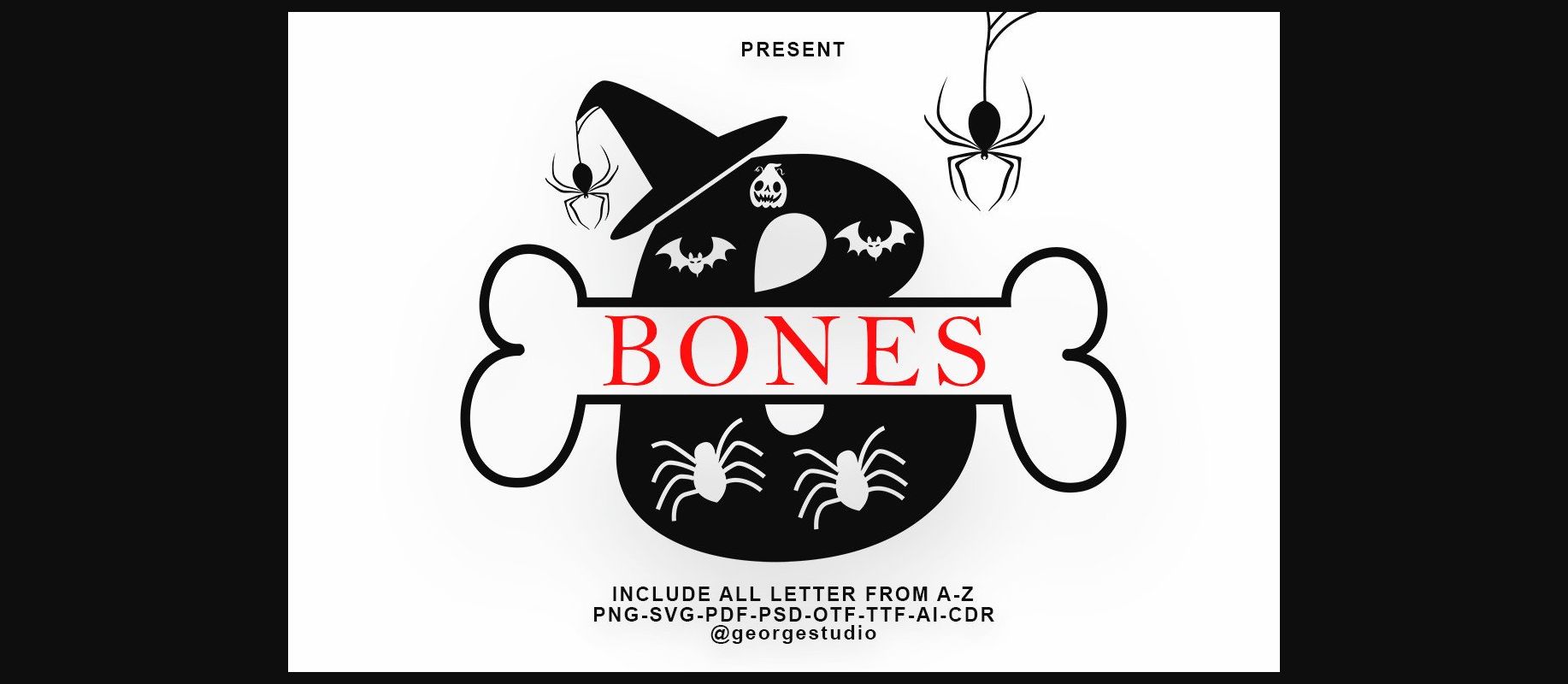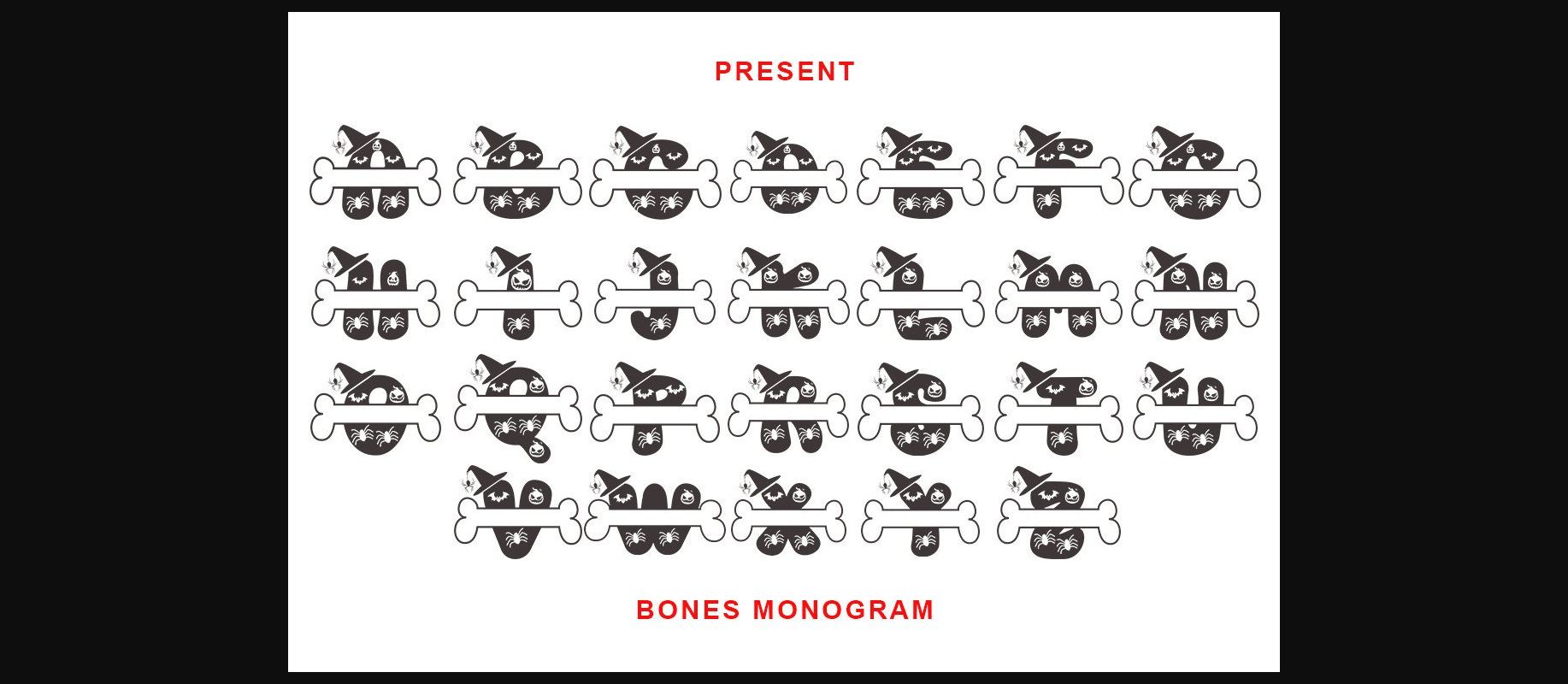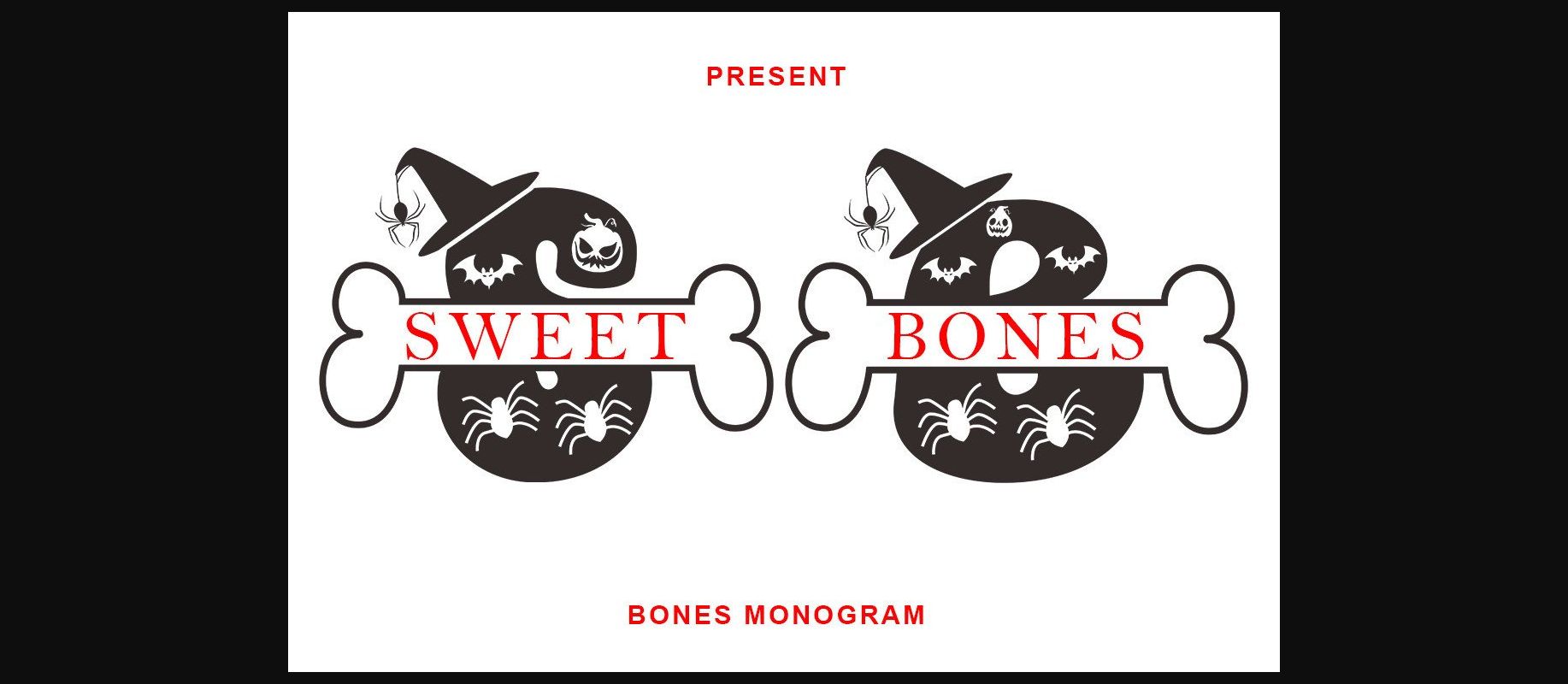
HomeDecorative FontsBones Font Decorative Fonts Bones Font FacebookXPinterestWhatsApp 1 of 5 ... Bones Font Poster 2... Bones Font Poster 3... Bones Font Poster 4... Bones Font Poster 5... About Bones Font Bone is an incredibly unique and spooky monogram decorative font. Add it to each of your Halloween designs and make them instantly come to life. DOWNLOAD NOW People also explored Austral Sans Font Pitulasan Font California Signature Font Laborious Font Bloattey Brilliant Student Font Gustatory Delight Font Champagne Font Spangled Font 282 0 TagsBonesBones Font Previous articleHipstravaganza Stencil FontNext articleFall Font LEAVE A REPLY Cancel reply Comment: Please enter your comment! Name:* Please enter your name here Email:* You have entered an incorrect email address! Please enter your email address here Website: Save my name, email, and website in this browser for the next time I comment. Personal Use Free Glosery Personal Use Free Read more about this font Cuttie Personal Use Free Read more about this font Carrolina Personal Use Free Read more about this font Comic Caps Personal Use Free Read more about this font BLOG Exploring Font Trends Shaping Communication in the Digital Era Fonts, like all design elements, are subject to trends. They play a crucial role in communicating a brand's personality,... To increase your work productivity, choose the most readable fonts. Free vs Paid Fonts: Why Investing in Premium Fonts Is Worth It Transform Your Website: Elevate Your Typography with 7 Best Web Font Generators